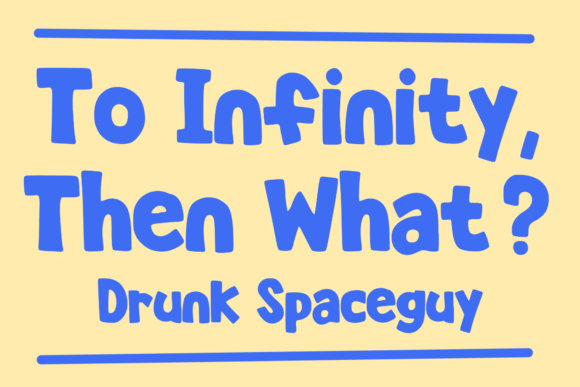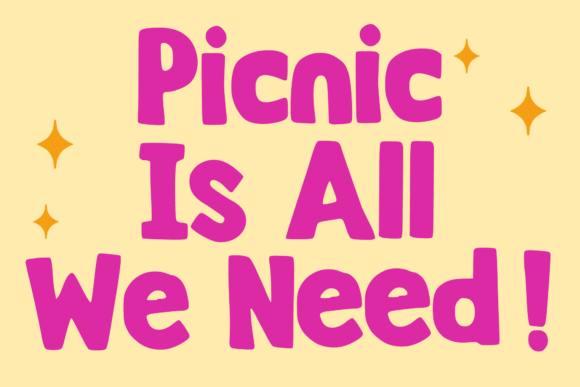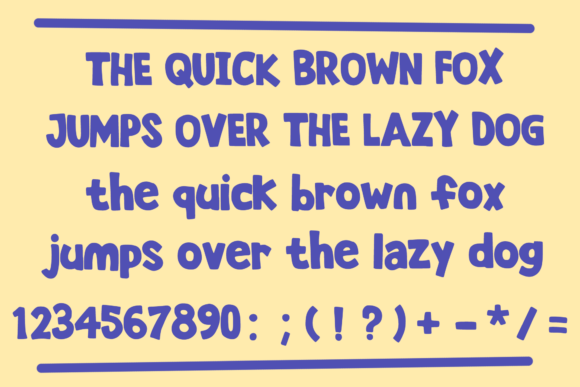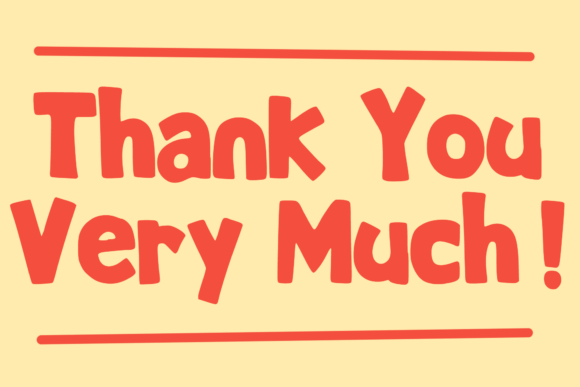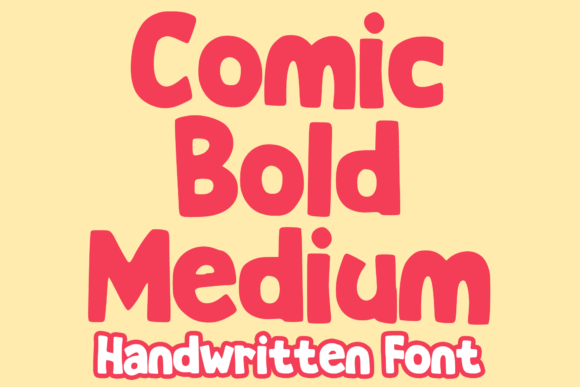
Introducing Comic Bold Medium: The Ultimate Font for Fun and Whimsy
Are you tired of using the same old fonts for your designs? Do you want to add a touch of fun and whimsy to your projects? Look no further than Comic Bold Medium, a playful and bold cartoon display font that’s perfect for a wide range of applications. In this article, we’ll explore the features and benefits of Comic Bold Medium, and show you how to make the most of this exciting new font.
What is Comic Bold Medium?
Comic Bold Medium is a fun and bold font that’s designed to bring a smile to your face. With its cheerful and playful vibe, this font is perfect for infusing a joyful spark into your designs. Whether you’re working on a kids’ book, a clothing design, or a party decoration, Comic Bold Medium is the perfect choice. Its medium weight makes it versatile and easy to read, while its bold lines and rounded edges give it a distinctly cartoonish feel.
What Can I Use Comic Bold Medium For?
The possibilities are endless with Comic Bold Medium! This font is perfect for:
- Kids’ books and educational materials: Add a touch of fun and whimsy to your stories and lessons with Comic Bold Medium.
- Clothing designs: Create eye-catching and playful designs for t-shirts, hoodies, and more.
- Party decorations: Use Comic Bold Medium to create fun and festive banners, signs, and other decorations for kids’ parties and special events.
- Greeting cards: Add a heartwarming touch to your cards and gift tags with this cheerful font.
- Stickers and posters: Create fun and colorful stickers and posters that are sure to grab attention.
- Banners and signs: Use Comic Bold Medium to create bold and eye-catching banners and signs for any occasion.
Why Choose Comic Bold Medium?
So why choose Comic Bold Medium over other fonts? Here are just a few reasons:
- Unique and playful vibe: Comic Bold Medium has a distinctly playful and cartoonish feel that’s sure to set your designs apart.
- Versatile: This font is perfect for a wide range of applications, from kids’ books to party decorations.
- Easy to read: Despite its bold lines and playful vibe, Comic Bold Medium is easy to read and understand.
- Fun and engaging: This font is sure to bring a smile to your face and add a touch of fun to your designs.
Tips for Using Comic Bold Medium
Here are a few tips for getting the most out of Comic Bold Medium:
- Use it with color: Comic Bold Medium looks great with bright, bold colors. Try pairing it with a fun color scheme to really make your design pop.
- Experiment with different sizes: This font looks great in a variety of sizes, from small and subtle to large and bold.
- Pair it with other fonts: Try pairing Comic Bold Medium with other fonts to create a unique and interesting contrast.
- Have fun with it!: The most important thing is to have fun with Comic Bold Medium. Experiment with different designs and ideas, and see what you can create!
Comic Bold Medium is a fun and playful font that’s perfect for designers and crafters who want to add a touch of whimsy to their projects. With its bold lines, rounded edges, and cheerful vibe, this font is sure to bring a smile to your face and make your designs stand out. Whether you’re working on a kids’ book, a clothing design, or a party decoration, Comic Bold Medium is the perfect choice. So why wait? Download Comic Bold Medium today and start creating your own fun and playful designs!